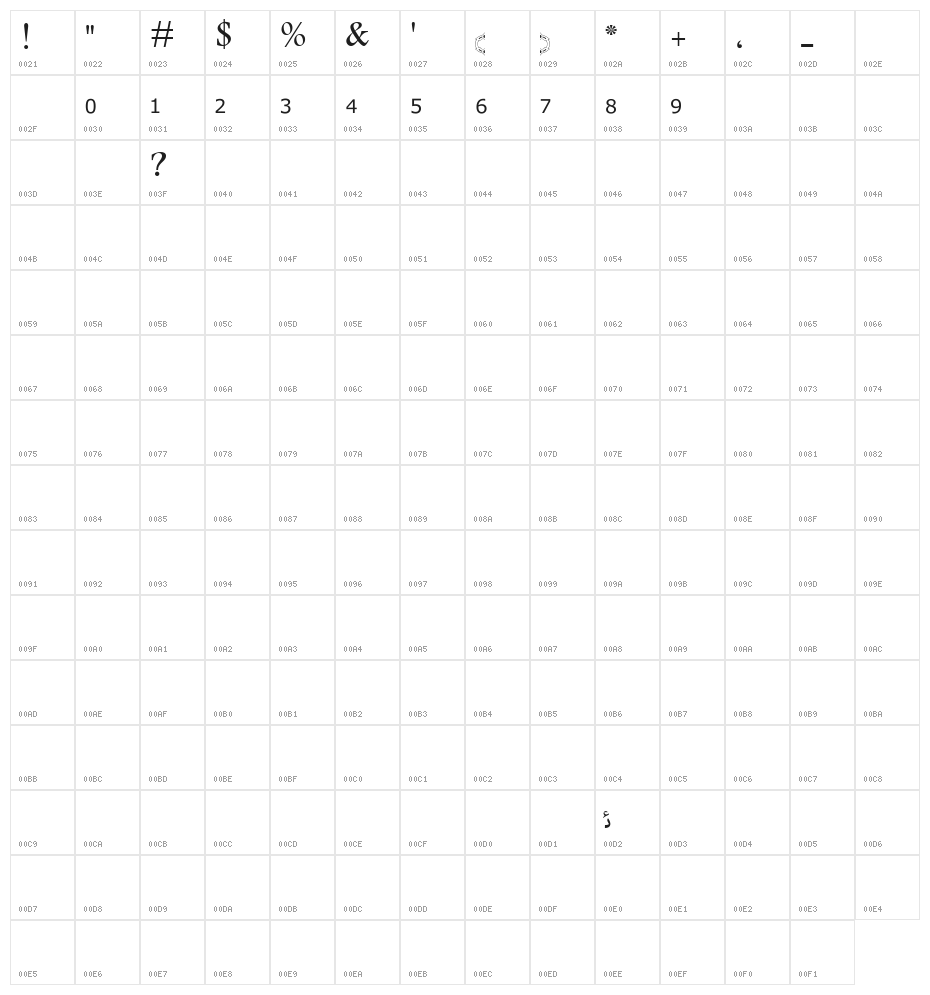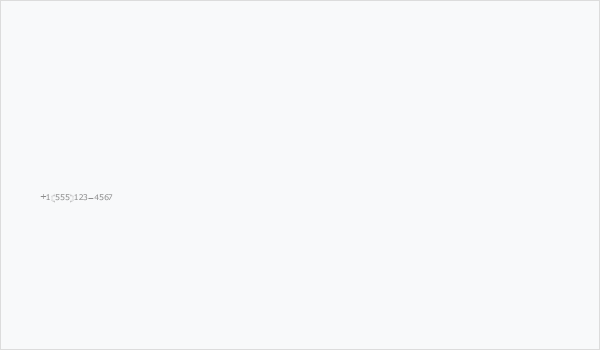
Qhoraan Font
Qhoraan Description
This font features a modern and clean design with a focus on readability and simplicity. The characters are well-proportioned, with a consistent stroke width that provides a balanced appearance. The numerals are clear and distinct, making them easily legible. Special characters are designed with a subtle flair, adding a touch of elegance without compromising the overall minimalist aesthetic. The font's versatility makes it suitable for a wide range of applications, from digital interfaces to print media.
| Proposed Projects | Ideal for digital interfaces, print media, branding, and corporate communications. |